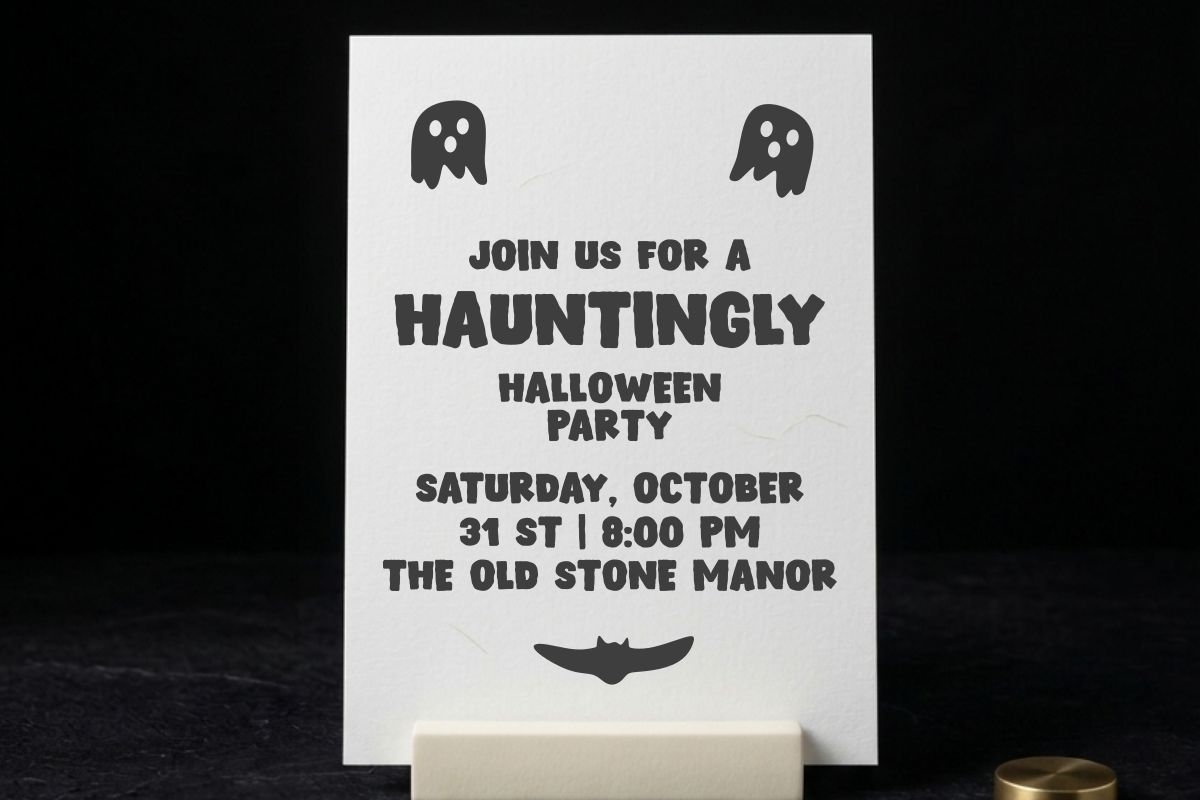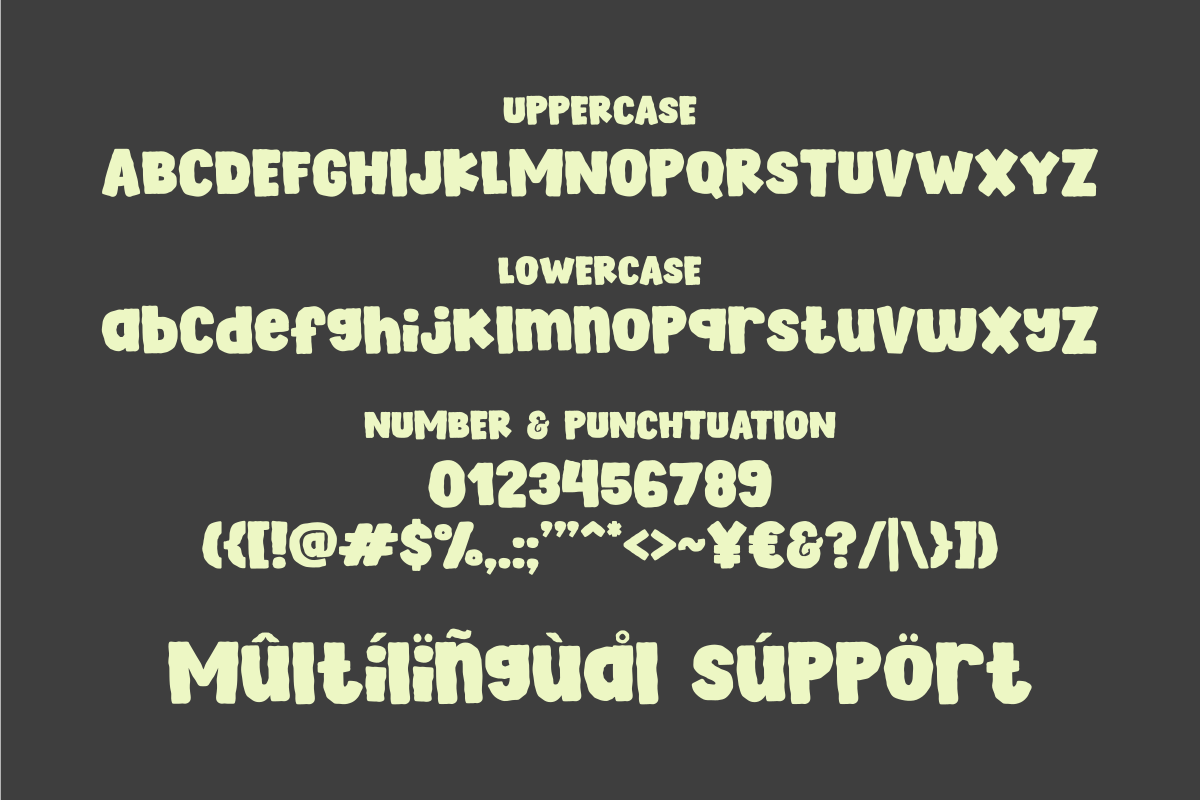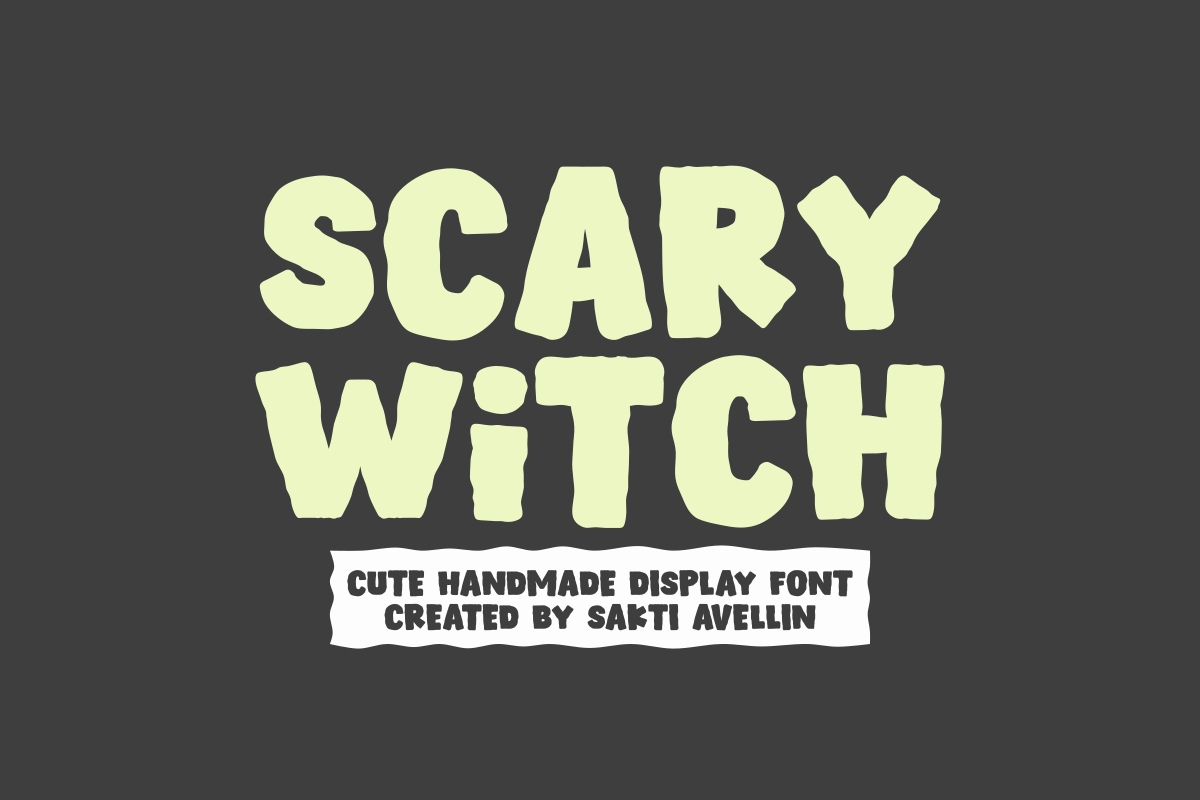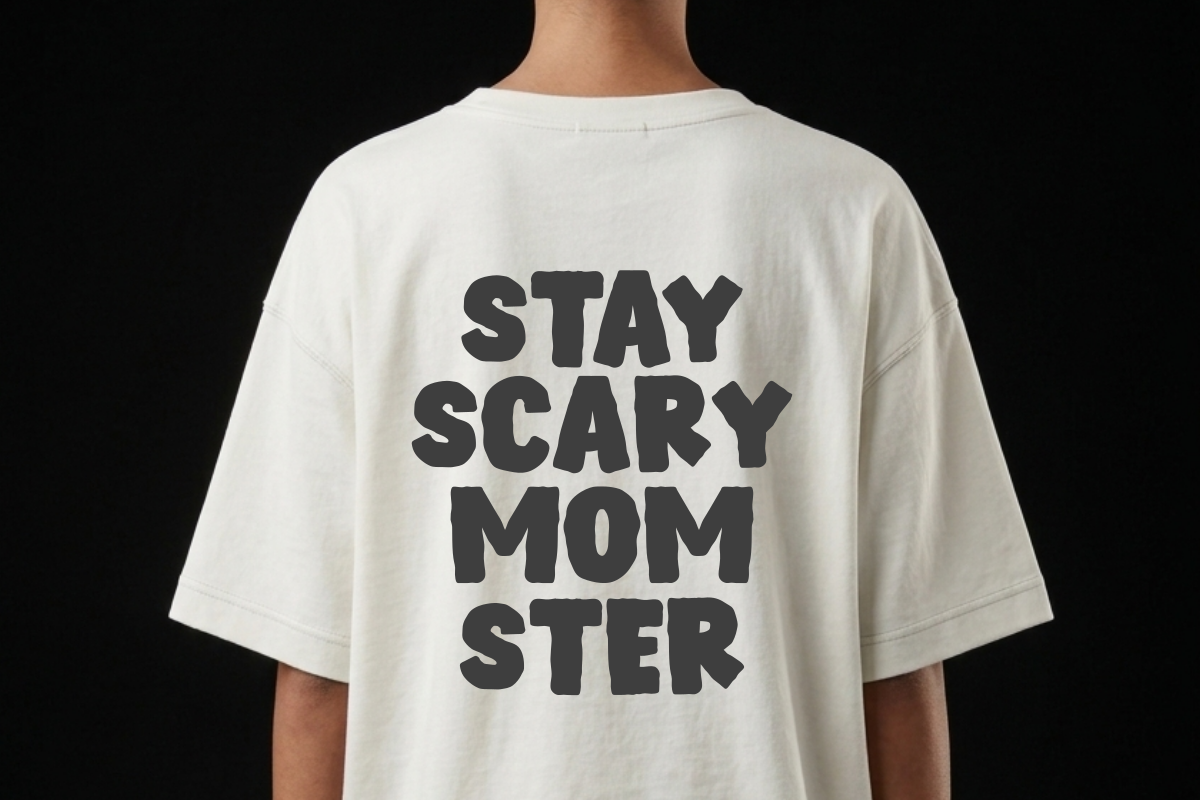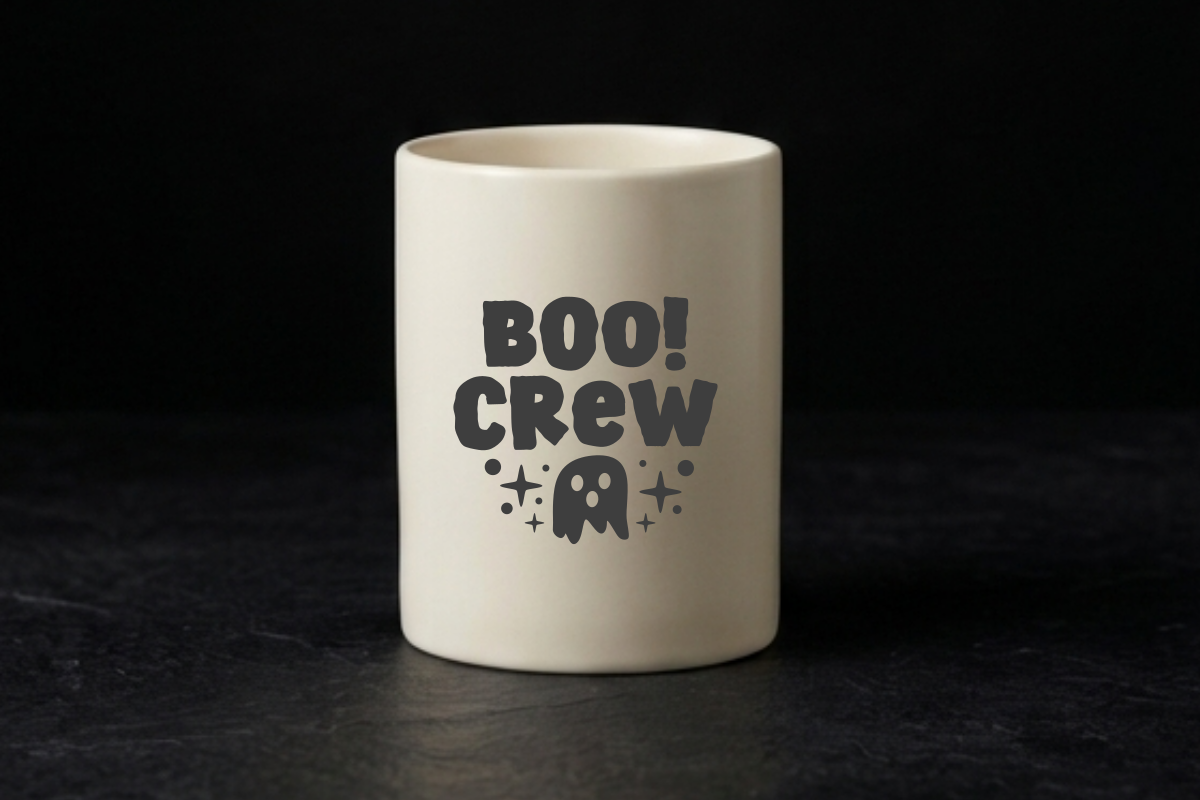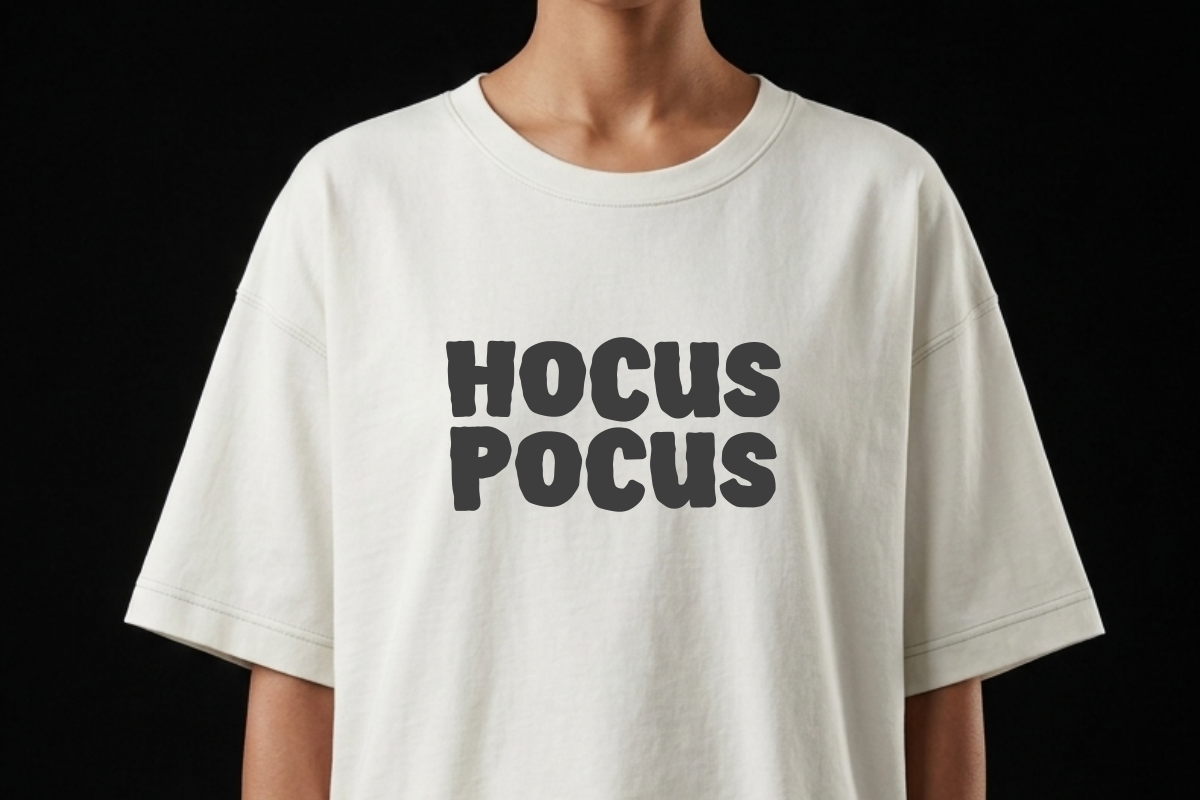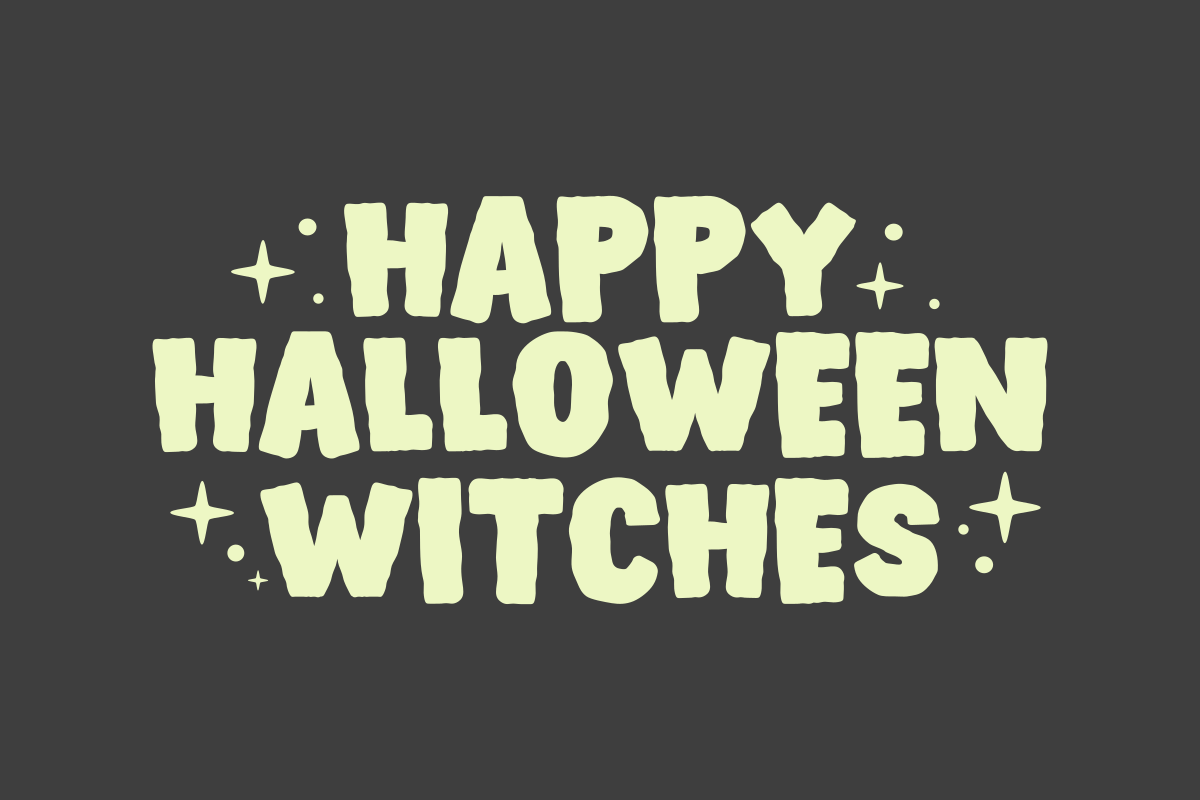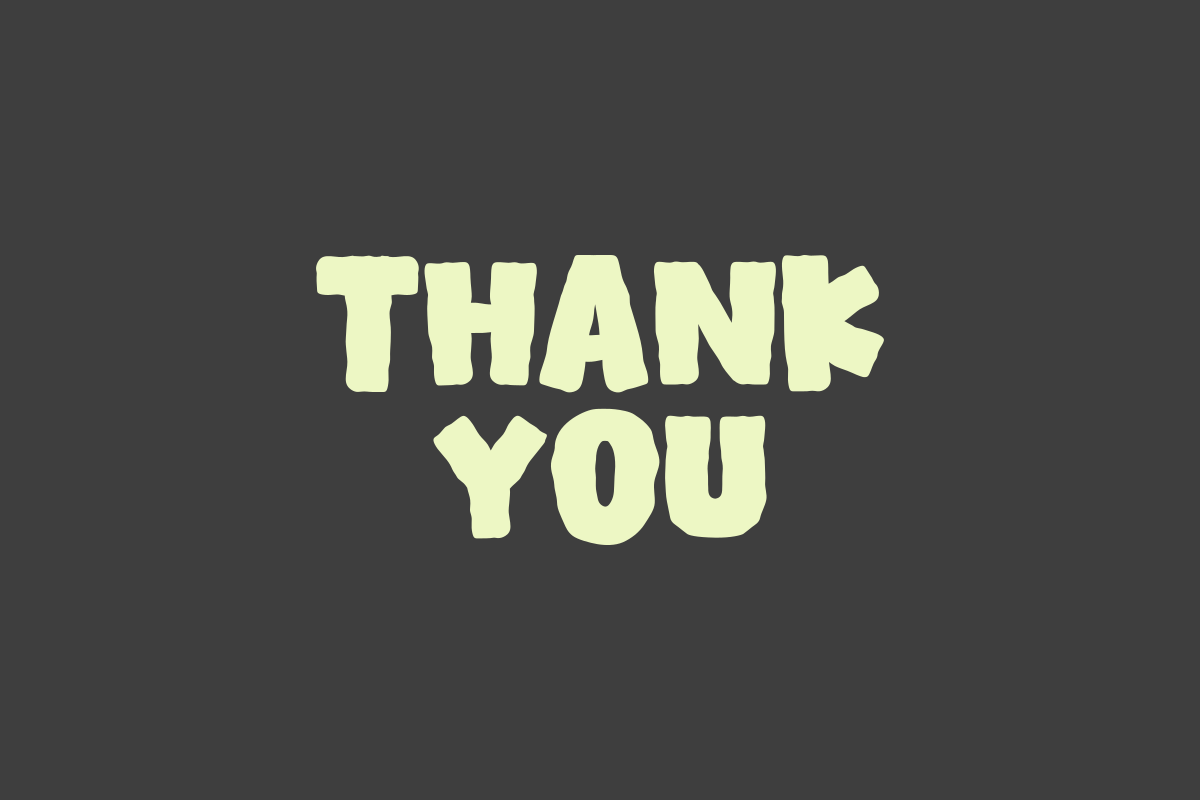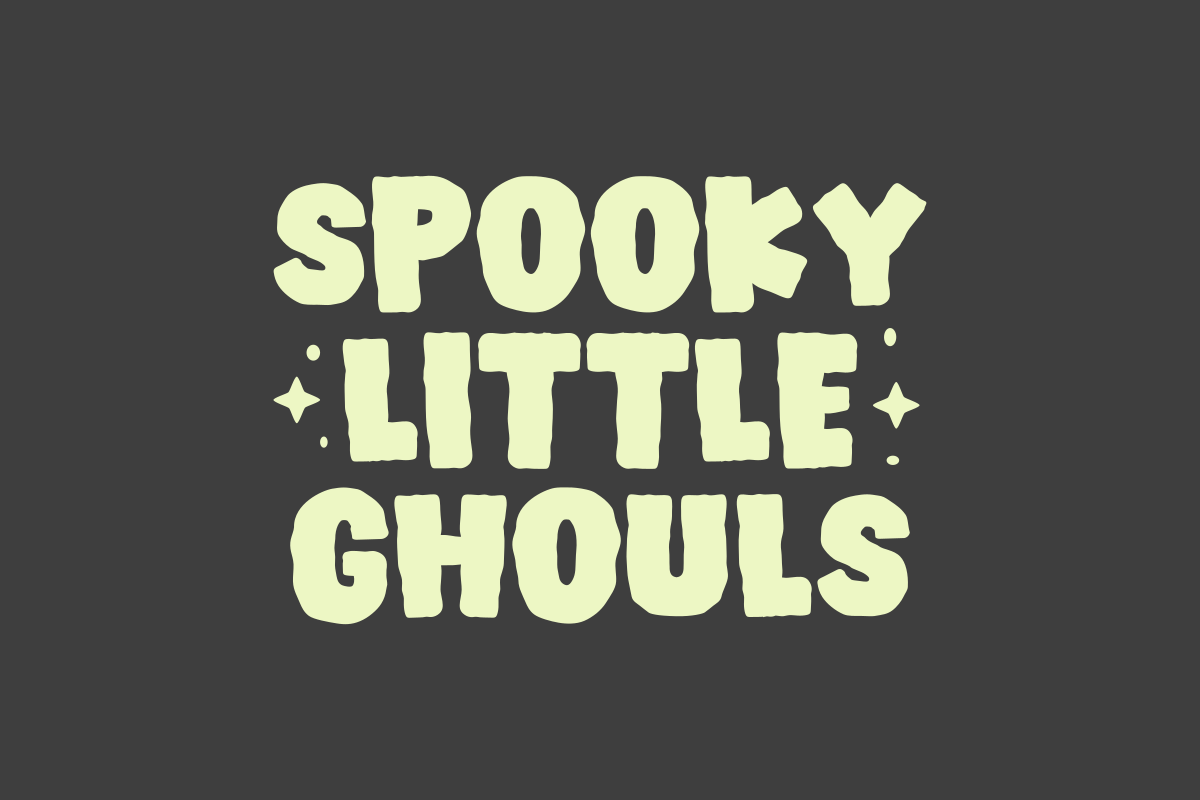
Scary Witch - Cute Display Font
Scary Witch is a cute handmade display font designed to add a touch of spooky fun to your creative projects. This charming typeface features chunky, irregular letterforms that capture a friendly, whimsical, and slightly eerie personality, making it an ideal choice for Halloween branding, party invitations, themed apparel, and creative social media graphics. Its distinct and playful aesthetic ensures your headlines stand out with a unique, handcrafted vibe. Whether you are designing for seasonal crafts, kids' costume events, or fun stickers, Scary Witch brings a delightful and creative flair to every design.